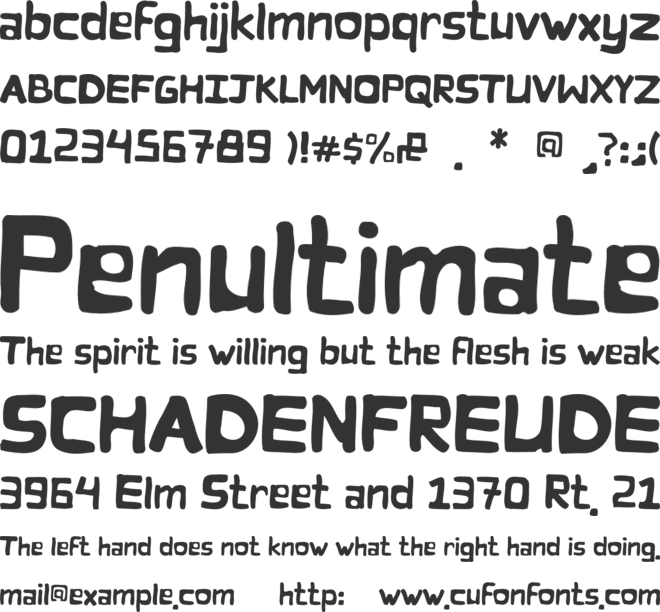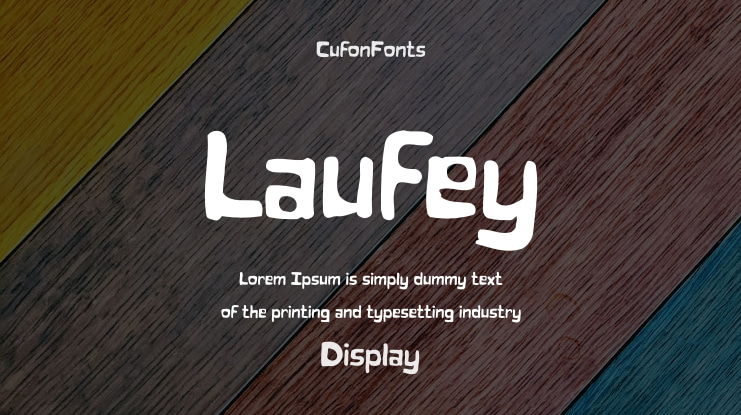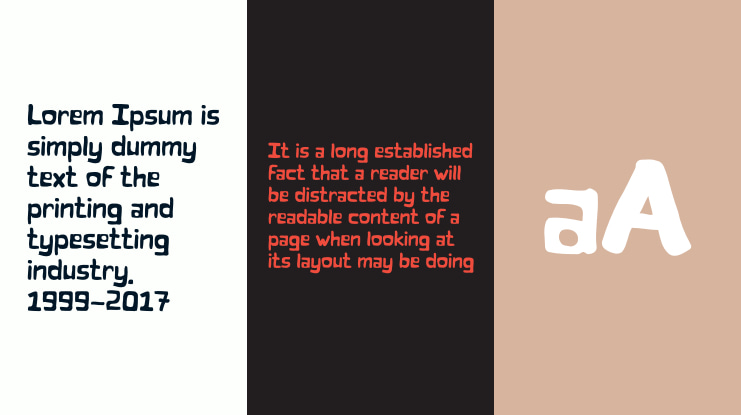
Laufey Font
Laufey is a unique and bold display font designed to make a statement with its soft, rounded shapes and playful alternates. Ideal for branding, posters, and merchandise, Laufey brings a modern and quirky vibe that stands out in various creative applications. Its eye-catching ligatures and character alternates add versatility, allowing designers to experiment with different visual styles. Laufey’s friendly and engaging appearance makes it suitable for projects that aim to convey a sense of fun, personality, and creativity.